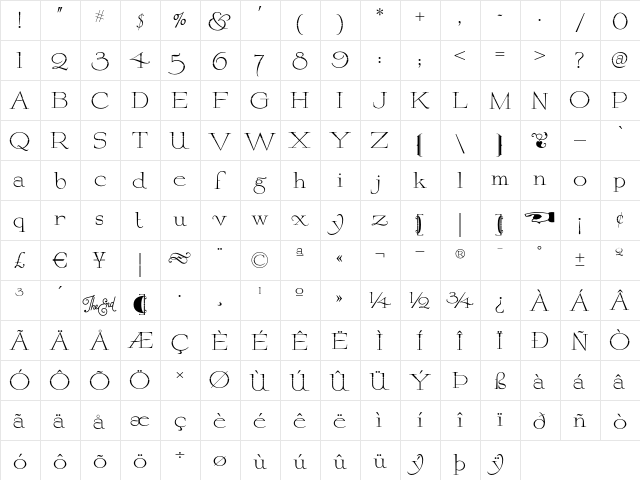
By George Titling NF Regular
Design Context for By George Titling NF Typeface
By George Titling NF offers clean, dependable letterforms without strong stylistic allegiance, making it a practical choice for designers who need flexibility.